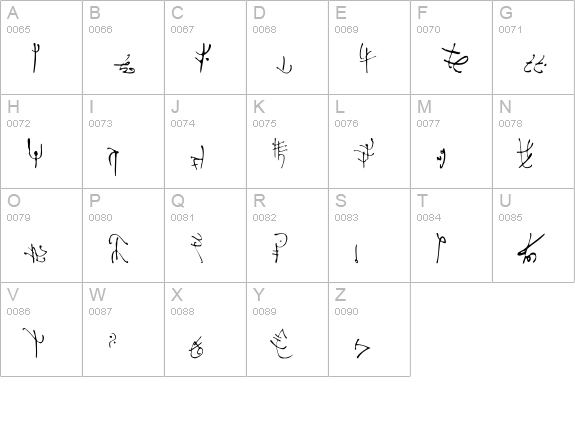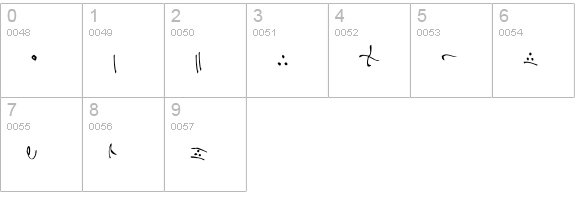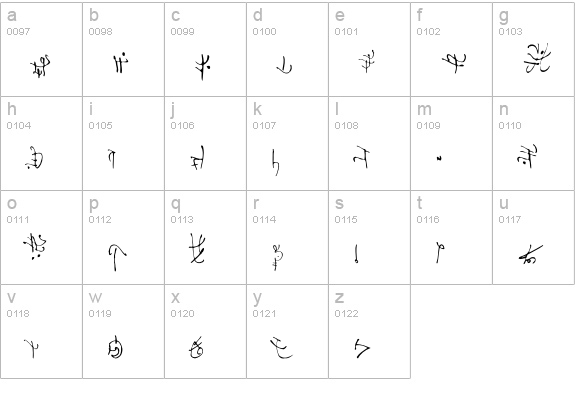
Korohanza Font Details
Korohanza font exudes a sense of elegance and sophistication, making it a perfect choice for any creative project. Its sleek lines and modern design make it a standout choice for logos, branding, and editorial designs. This versatile font is suitable for both headings and body text, adding a touch of class to any project. What sets Korohanza font apart is not just its aesthetic appeal, but also the fact that it is available for free download at FontsMarket.com. This means that you can elevate your designs without breaking the bank. Don't miss out on the opportunity to add this stunning font to your collection and take your projects to the next level.